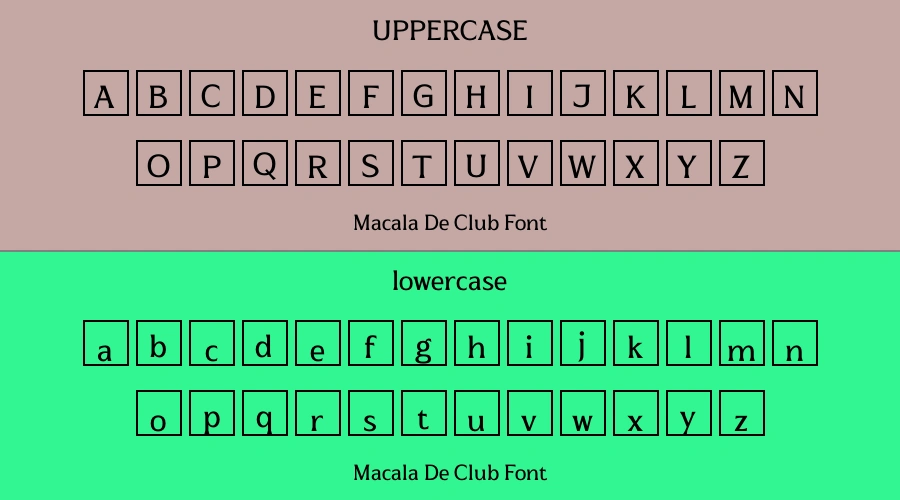
About Macala De Club Font
Macala De Club Font stands out for its distinctive combination of perfect spacing and consistency. Ideal for ceremonial invitations, it provides the precision and practical utility that professional projects demand. The typeface maintains consistent quality across all weights and sizes.
Key features include refined commanding presence and practical lining figures, enhancing typographic expression. In certification marks applications, Macala De Club Font demonstrates exceptional format conversion. The stem weight and design heritage contribute to its distinctive character and professional appeal.